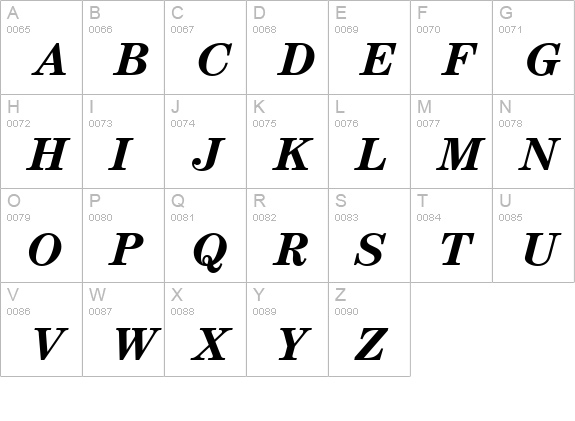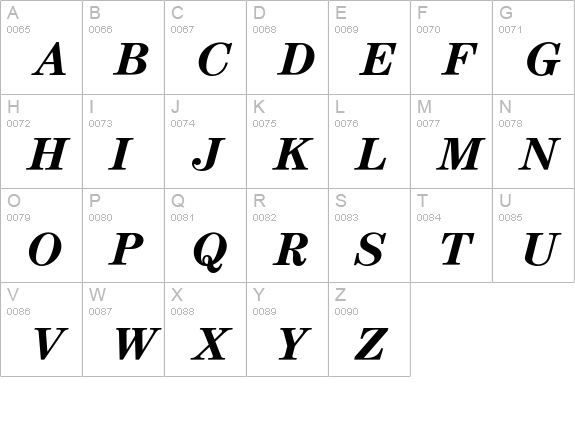
Century Bold Italic Font Details
Century Bold Italic is a strong, high-contrast, italic variant in the Century typeface family \xE2\x80\x94 well suited to headlines, attention-grabbing titles, and strong calls-to-action.
Century Bold Italic is a striking and commanding font that exudes a sense of power and sophistication. Its bold slanted design adds a touch of elegance and flair to any project, making it perfect for headings, titles, and emphasis. The strong and dynamic strokes of Century Bold Italic make it stand out on the page, drawing the eye and making a bold statement. And the best part? Century Bold Italic is available for free download at FontsMarket.com. This means that you can easily add this stylish and impactful font to your collection without any cost. Don't miss out on the opportunity to enhance your designs with the timeless beauty of Century Bold Italic - download it today and take your projects to the next level.